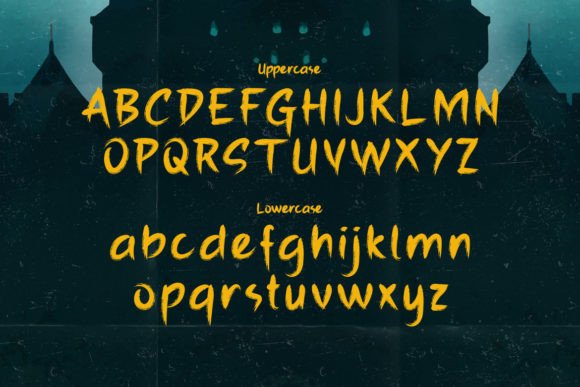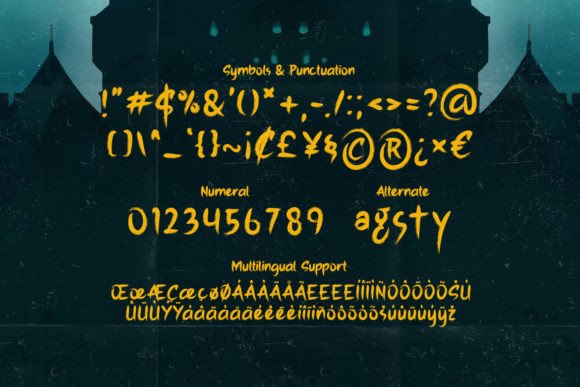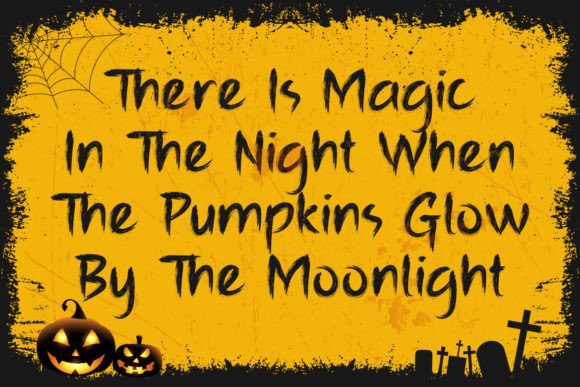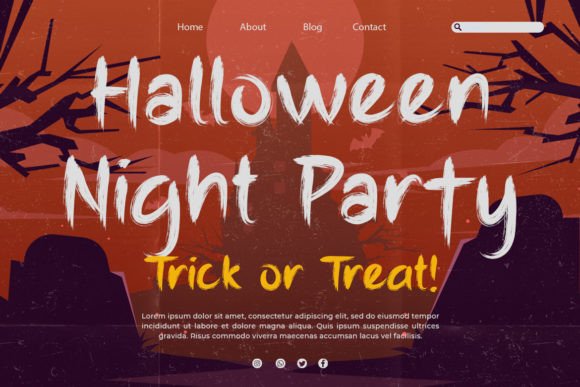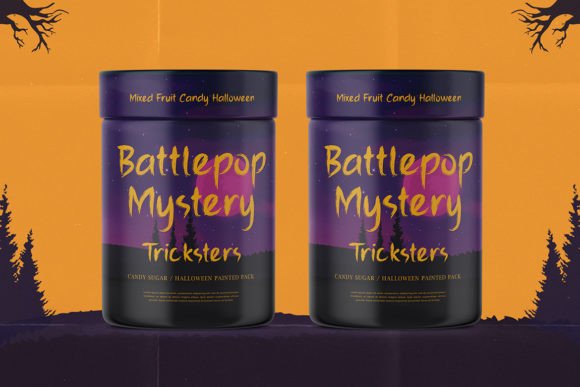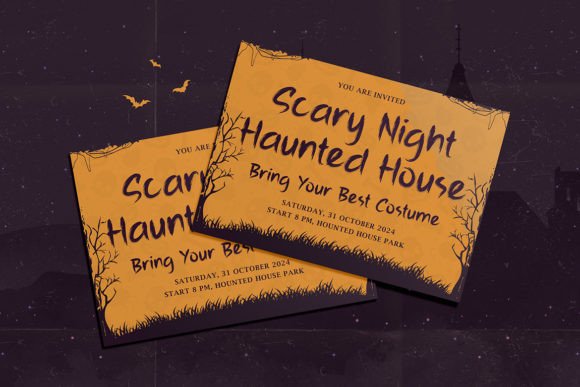
Introduction to Moaned Font
As designers, we’ve all been there – staring at a blank canvas, trying to bring our creative vision to life. But sometimes, the right tool can make all the difference. That’s where Moaned Font comes in – a dark, horror-inspired display font that adds an instant dose of eeriness to any design project.
Whether you’re working on a scary craft, a horror movie poster, or a t-shirt design, Moaned Font is the perfect addition to take your project to the next level. Its high-quality design and transparent background make it easy to use and customize, making it a valuable resource for designers of all levels.
Key Features of Moaned Font
- High-quality, professional font design ideal for creative projects and designs
- Unique, hand-drawn design style that adds a touch of personality to any creative project
Honest Review: Moaned Font
I recently stumbled upon the Moaned Font while searching for a free design resource for my next creative project. I was immediately drawn to its unique and emotive qualities, making it perfect for conveying a range of emotions in my design.
- ✨ The Moaned Font has a high level of customization, allowing me to easily adjust the font size, color, and style to suit my design needs.
- ⚠️ The Moaned Font is a bit limited in terms of its versatility, and it may not be suitable for all design projects.
Overall, I’m impressed with the Moaned Font and would definitely recommend it to designers looking for a high-quality, free download for their creative projects. While it has some limitations, its unique qualities and high level of customization make it a valuable design resource.
Tips for Getting the Most Out of the Moaned Font
To get the most out of the Moaned Font, experiment with different font sizes and styles. You can also use it in combination with other fonts to create a unique design. Don’t forget to check the transparent background option to ensure your design looks professional.
The Moaned Font is perfect for creating eye-catching headlines, titles, and captions. You can also use it to add a touch of elegance to your designs. With its high-quality design, you’ll be sure to impress your audience.